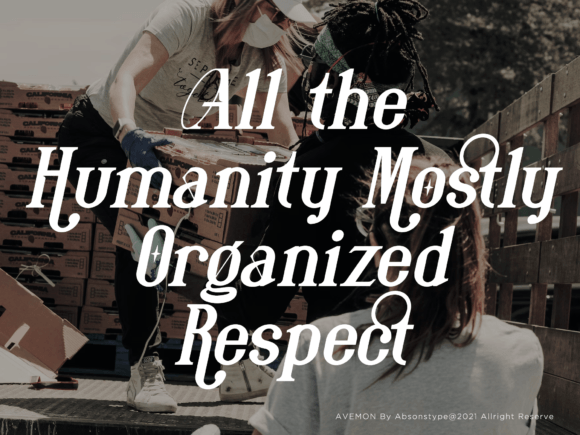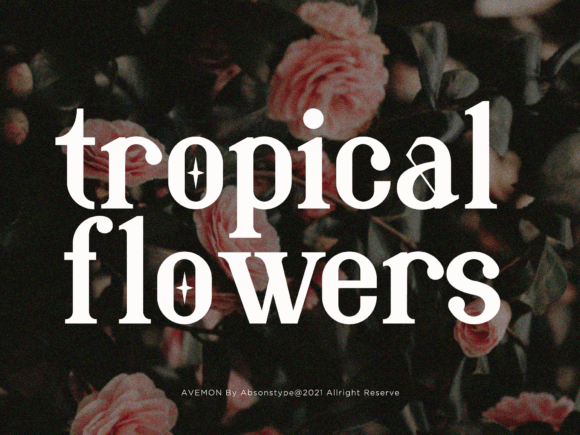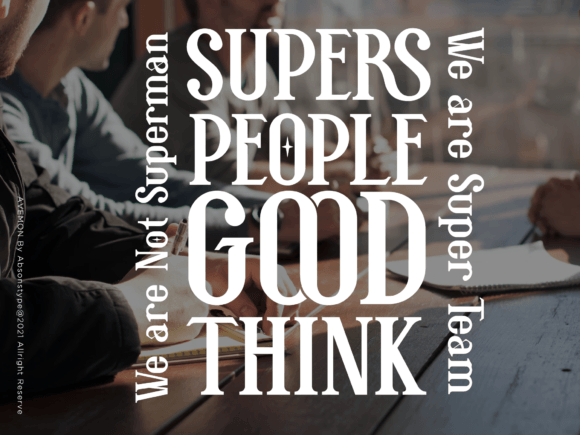
Introduction to Avemon Font
AVEMON is the elegant classic serif style with uppercase and lowercase feel nice balanced.
Provide alternates and ligatures font in variant style make the design letter looks nice Honestly it works perfectly for headlines, logos, posters, packaging, T-shirts and much more.
Key Features of Avemon Font
Why Choose Avemon Font?
Avemon Font offers exceptional quality and versatility, making it a valuable addition to your design toolkit. Whether you’re creating for personal projects or commercial use, Avemon Font delivers professional results.